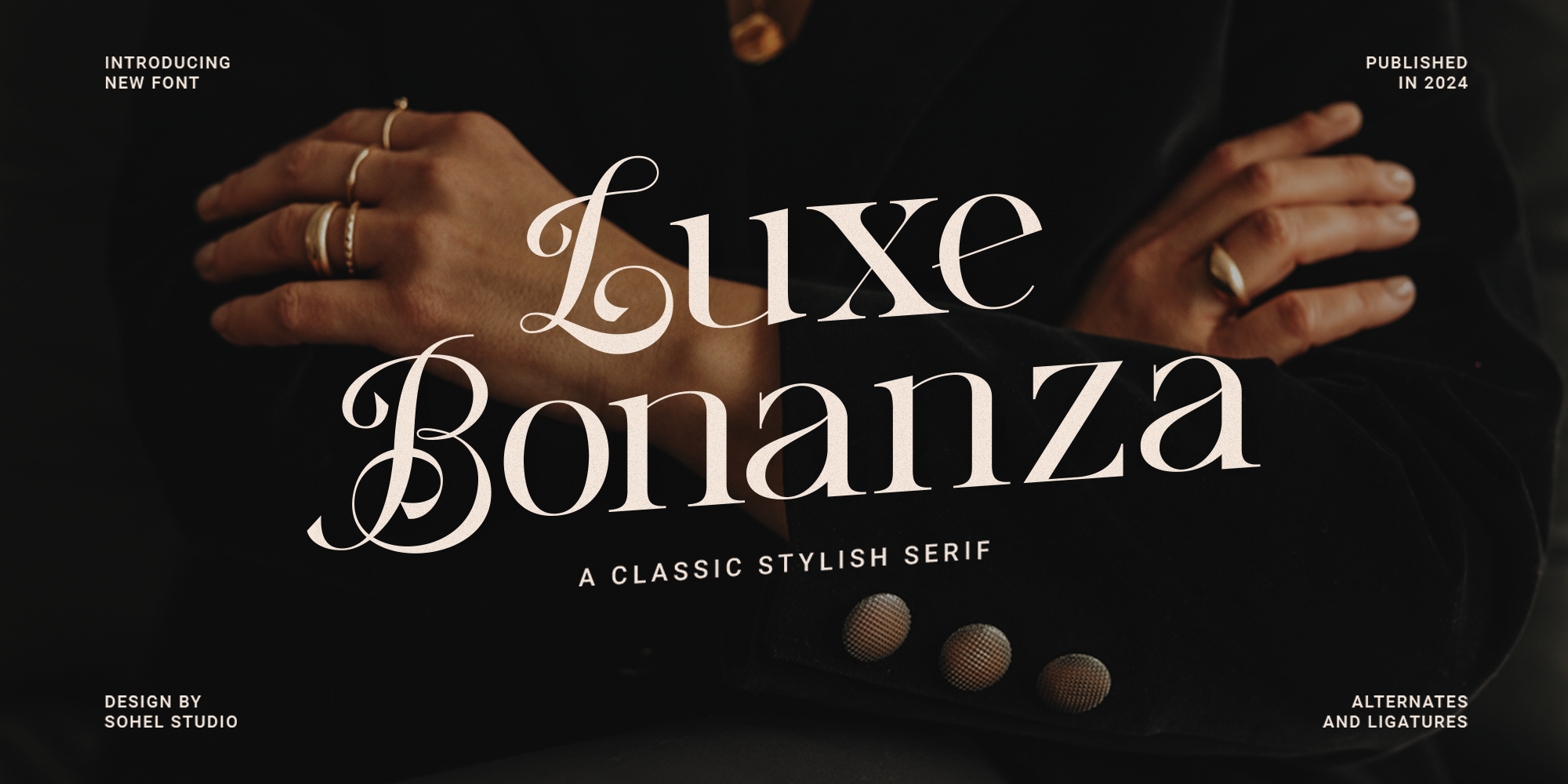
Luxe Bonanza
Luxe Bonanza is a serif font family published by Sohel Studio.
Luxe Bonanza is an old and modern style serif created with a desire for quality fonts. The number of alternatives is enormous, from simple styling alternatives to swashes, fasteners and substitutes.
Luxe Bonanza being a very versatile font with its classic shape and modern features, this font will be ideal for a variety of design projects from blog graphics, stylish quotes, wedding stationery, art prints and many others.
Luxe Bonanza Features:
- Uppercase & Lowercase
- Alternates & Ligatures
- Numerals & Punctuation
- Accented characters
- Multilingual Support